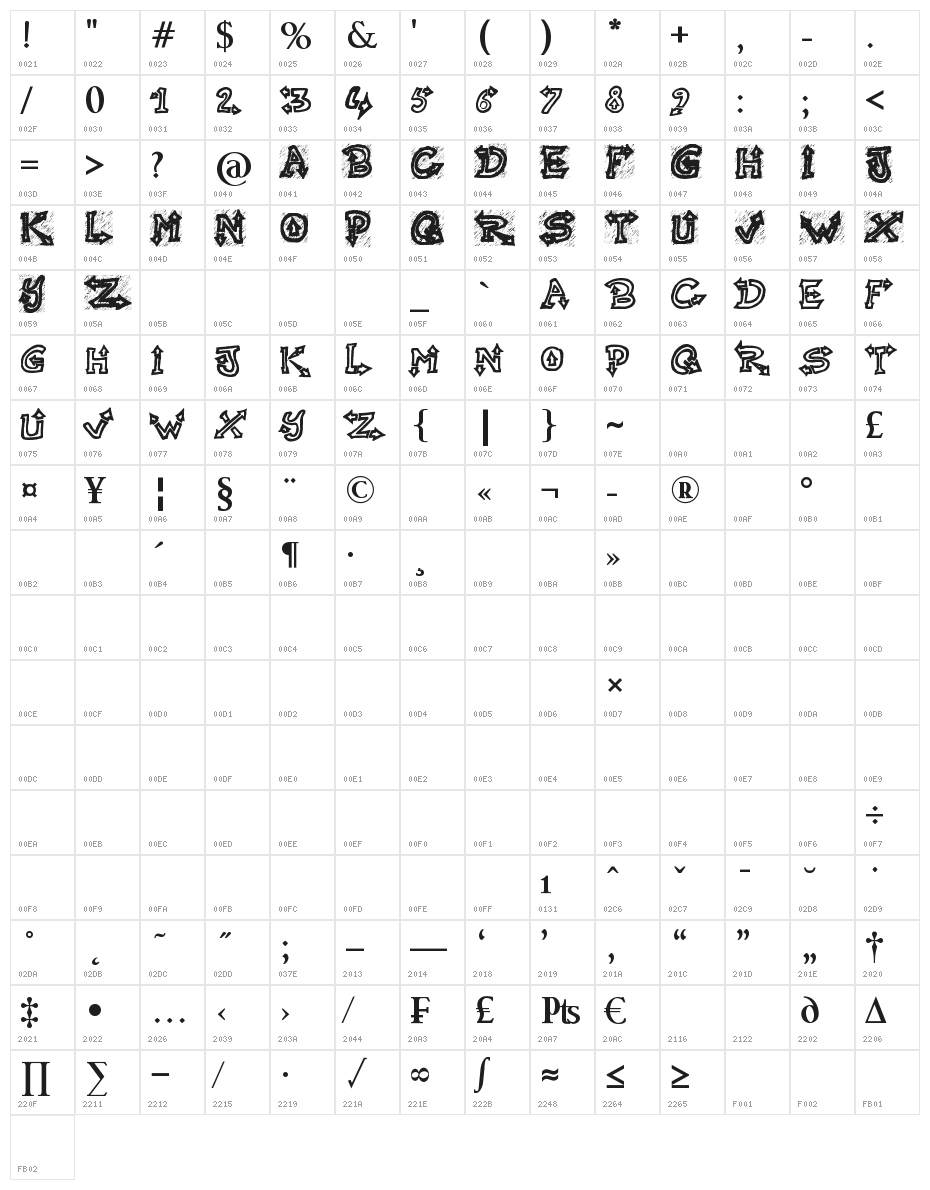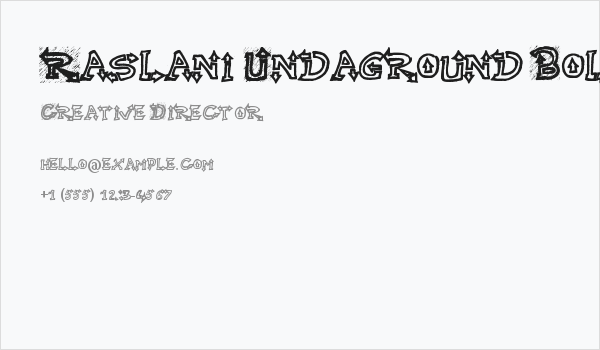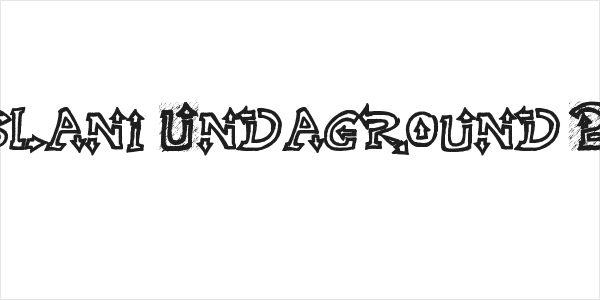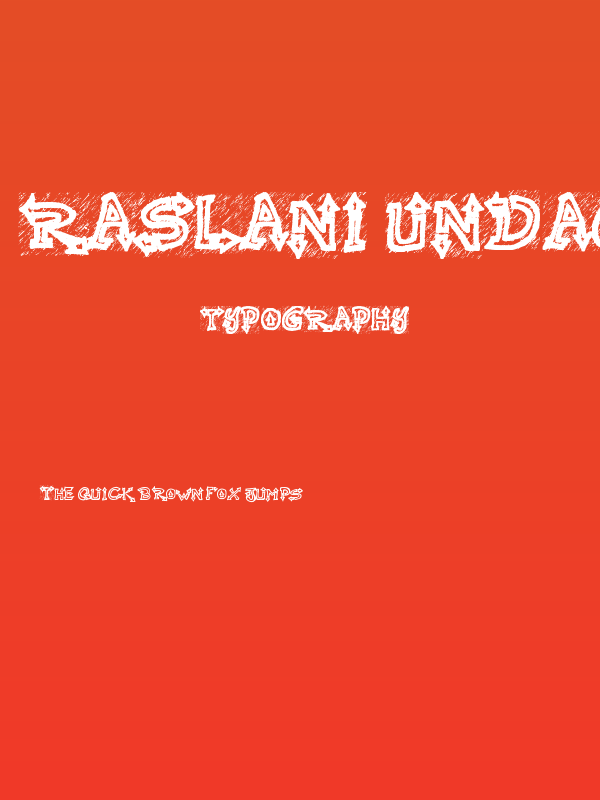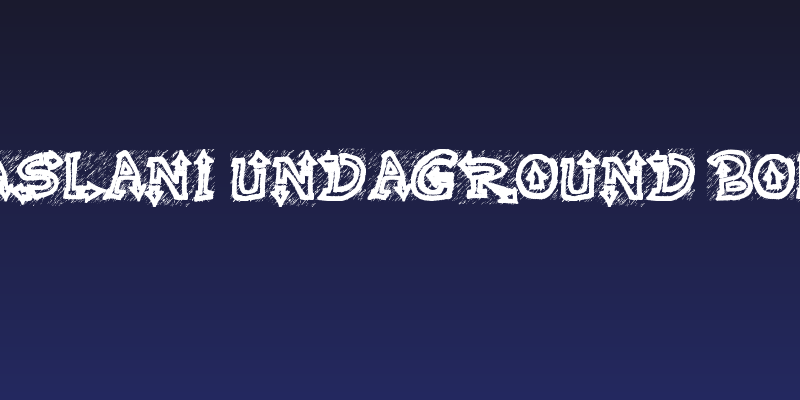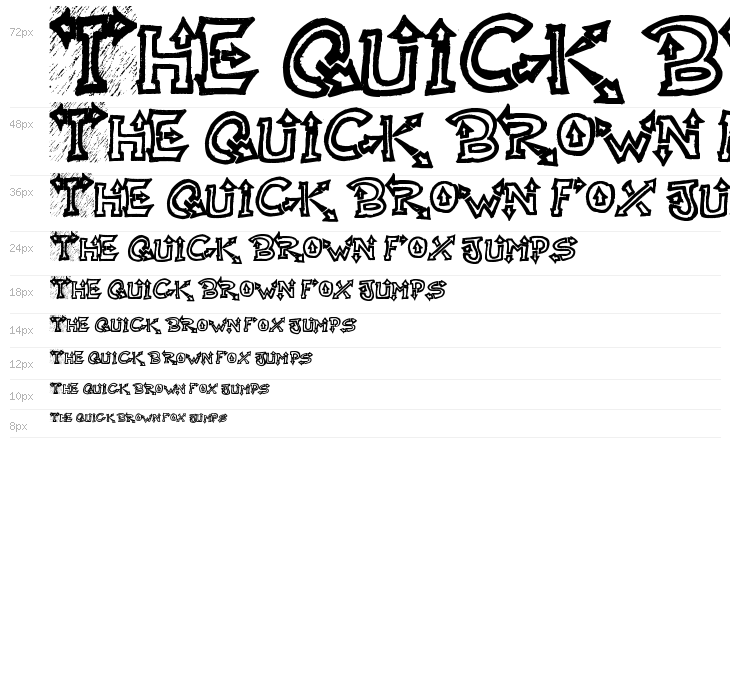
Raslani Undaground Bold Font
Raslani Undaground Bold Description
This font features a bold and edgy design with a distressed, grunge-like texture. The characters are adorned with sharp, angular embellishments that give it a rebellious and underground feel. The uppercase and lowercase letters maintain a consistent style, with exaggerated serifs and unique shapes that make each character stand out. The numerals and special characters follow the same bold and dynamic aesthetic, ensuring a cohesive look across all text. This font is perfect for projects that require a strong, impactful visual presence.
| Proposed Projects | Ideal for music album covers, streetwear branding, event posters, and edgy graphic designs. |